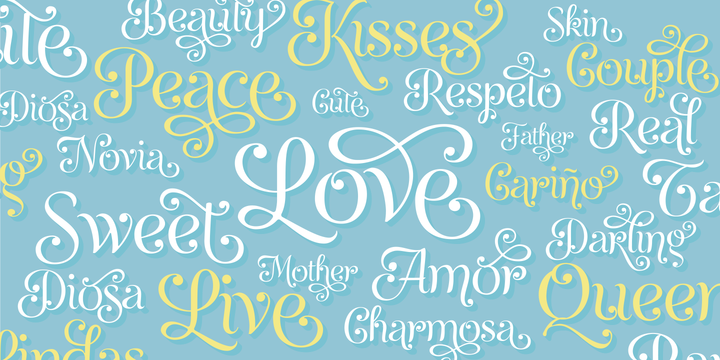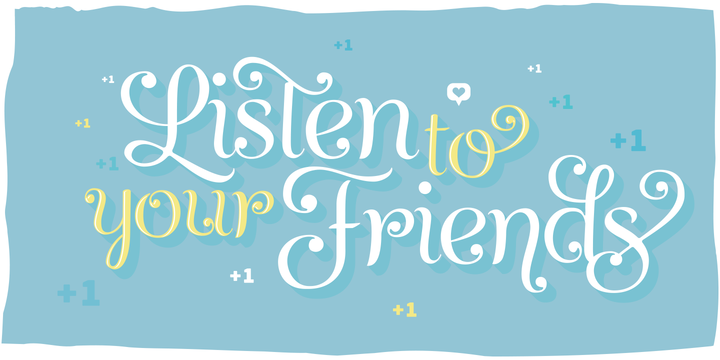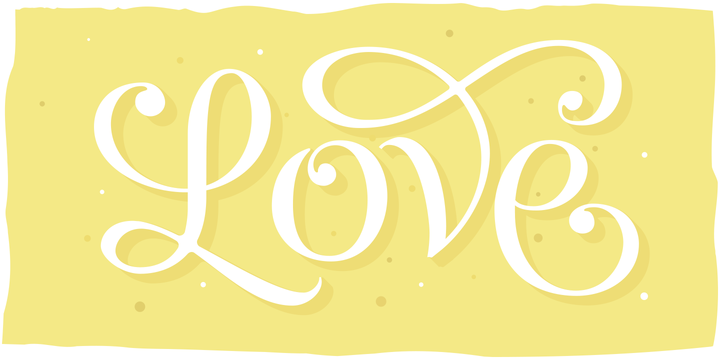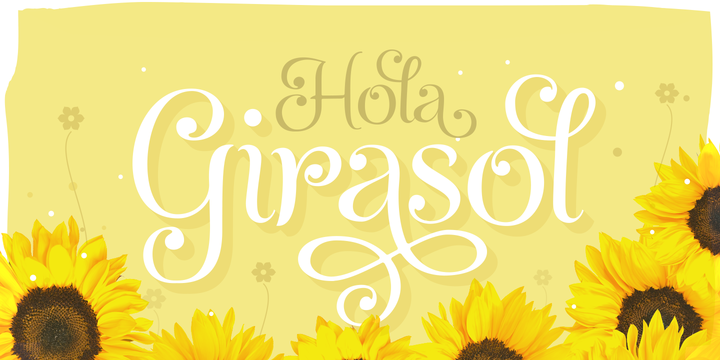
This is a cute story about a mother and her son. :) About a decade ago my own mother got very interested in my work. She used to say my letters had so many swirls and dazzling swashes, and suggested my job seemed to be very fun.
She wondered if she could ever try to make her own alphabet... Well, she is a civil engineer and a maths teacher, and appeared to be a little tired of exact sciences.
.. More I remember answering this, while she was listening with her typical tender look: -"Mamá.
.. While type-design may be a really enjoyable thing to do, it also involves having a great eye and knowledge about the history of letters: nice curves and shapes require a meticulous study and, like it happens in many fields, practice makes perfect"-.
Well, she raised her eyebrows at me. -and so what?- She didn't have any experience neither in the field of art nor in the field of graphic design so, I told her that if she really wanted to get into this she should borrow some of my calligraphic books from my beloved shelves in my office.
So... she did. Some weeks after that, she came to me with many sketches made with pencils and markers: some letters where very nice and unique while others naturally needed some work.
I remember she added ball terminals to all of her letters (even if they didn't need them) because that was one of the rules she imposed.
After some back and forth, we had the basis for what would be today, ten years later, the seed of this lovely font Girasol.
Her proposal was nice, something I was not accustomed to do, thats why many years later I decided to watch it with fresh new eyes and finished it.
While she was in charge of making the lowercase letters, I helped with the uppercase and also added my hallmark in the alternates, already seen in others of my expressive fonts.
The result is an upright decorative font that follows the behavior of the copperplate nib with a naive touch that makes it really cute and useful for a wide range of products.
Many alternates per glyph make Girasol a very fun to use font which will delight you.
Above posters are a proof of that! This font is a gift for my mother, Susana, who, in spite of her exacts academic background, taught me that beauty can also be found in the imperfect.
1 NOTES (1) In my fonts I'm always in seek of the perfect curve. When I designed Erotica and Dream Script, I read about Fibonaccis spirals!